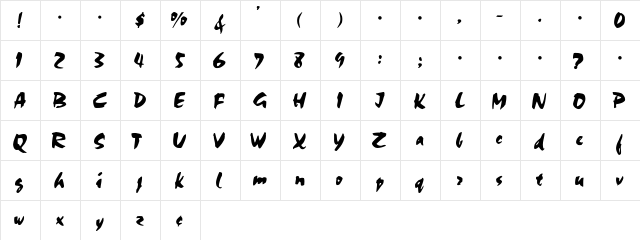
Fall River Regular
Design Context for Fall River Typeface
Fall River is a composed and adaptable typeface that performs quietly and consistently across a wide range of design contexts.
Pro Tip: Use Fall River in both headline and body roles to test its range before committing to a single application.